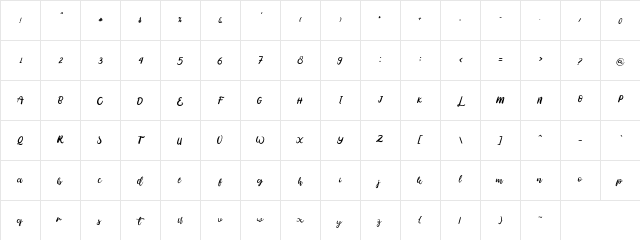
Complete I_Love_January Regular glyph index. Displaying only characters natively supported by I_Love_January Regular font.
I_Love_January is a composed and adaptable typeface that performs quietly and consistently across a wide range of design contexts.